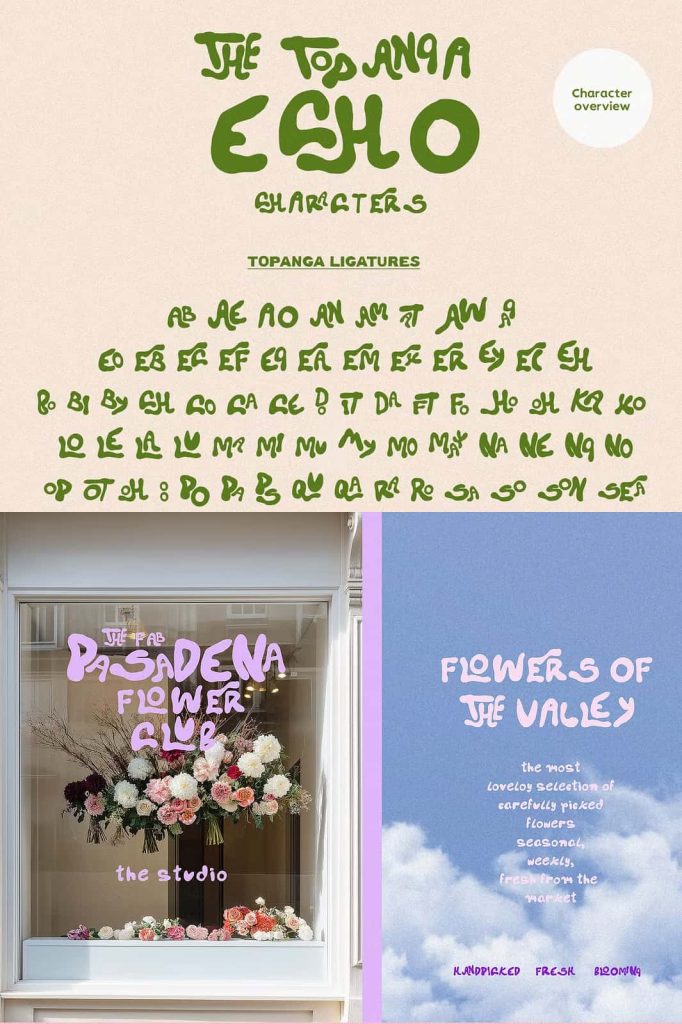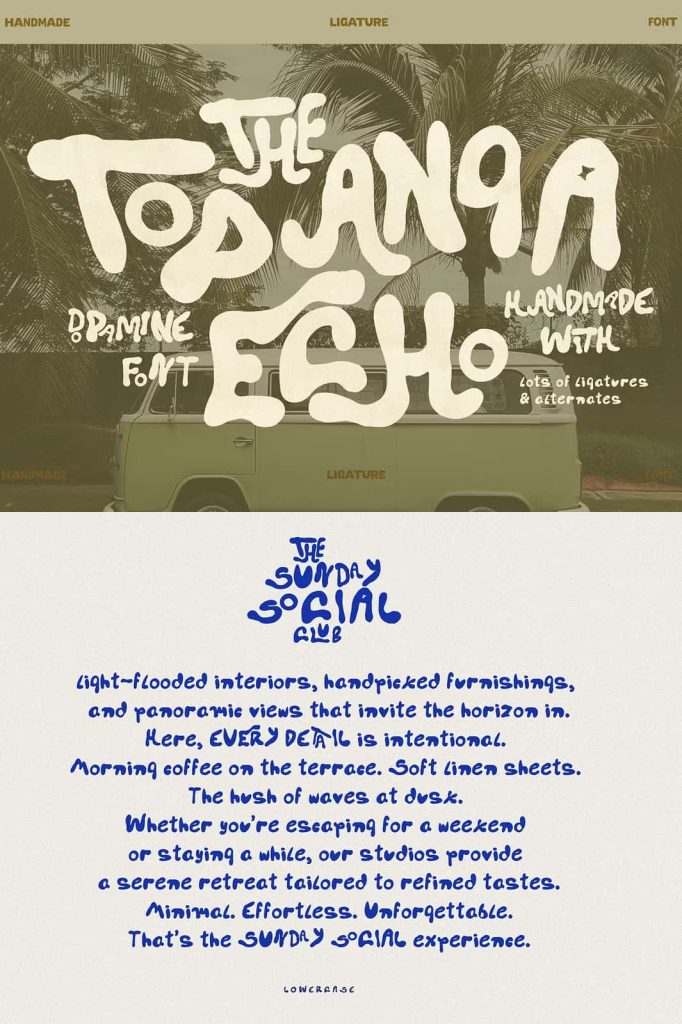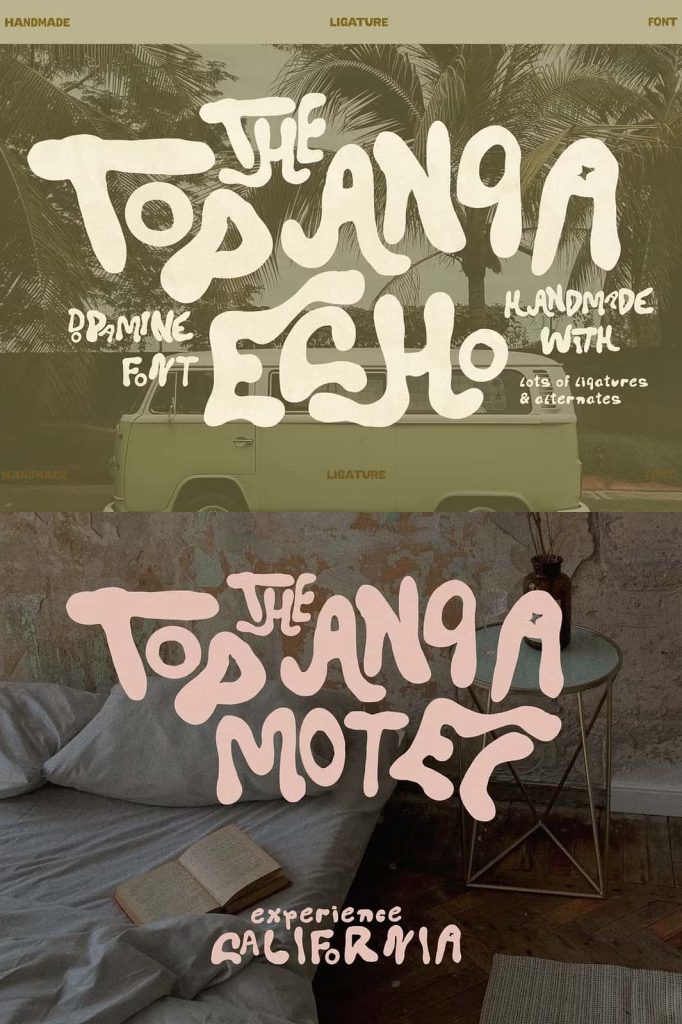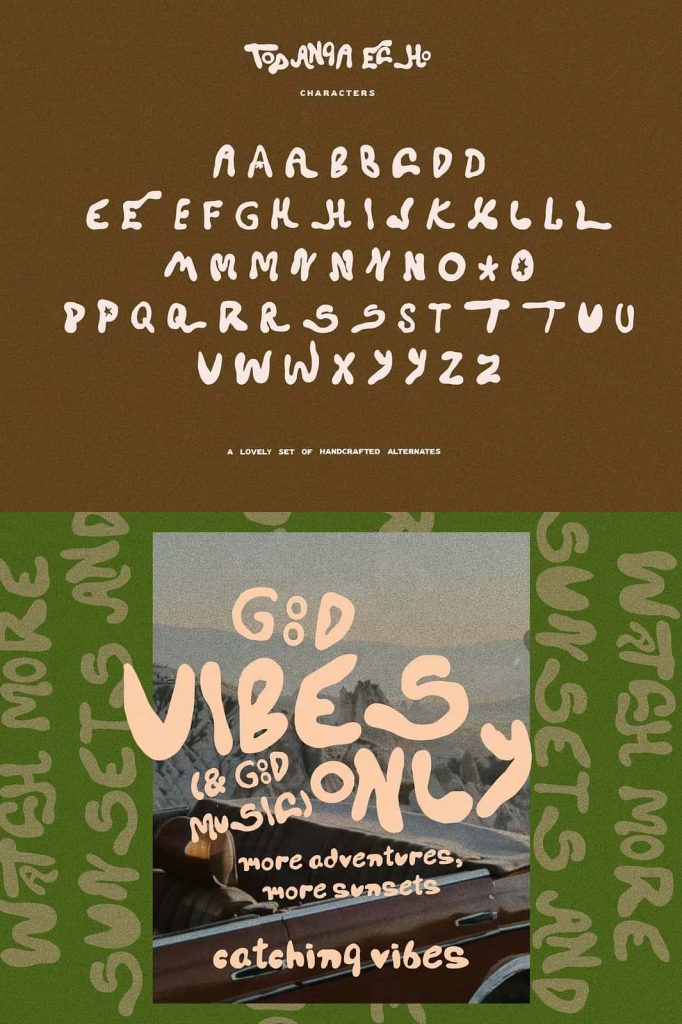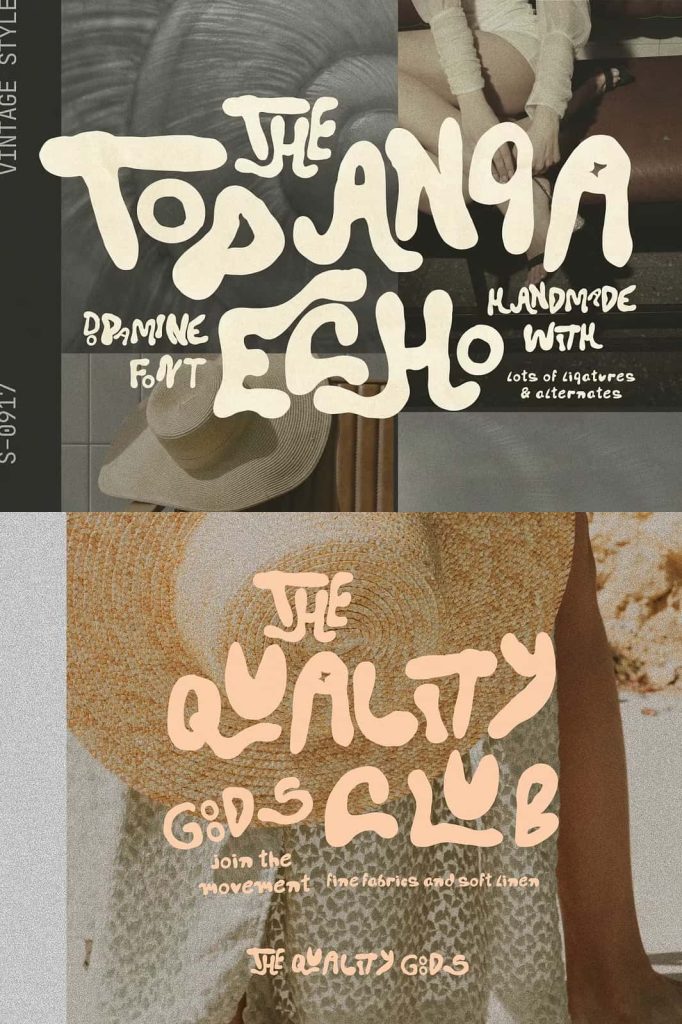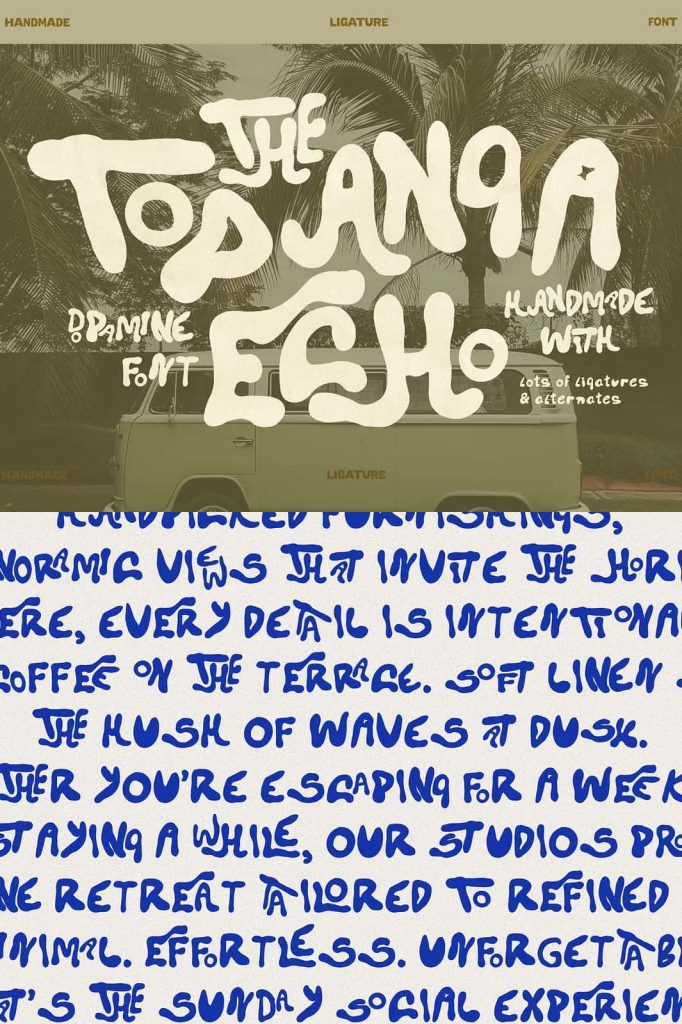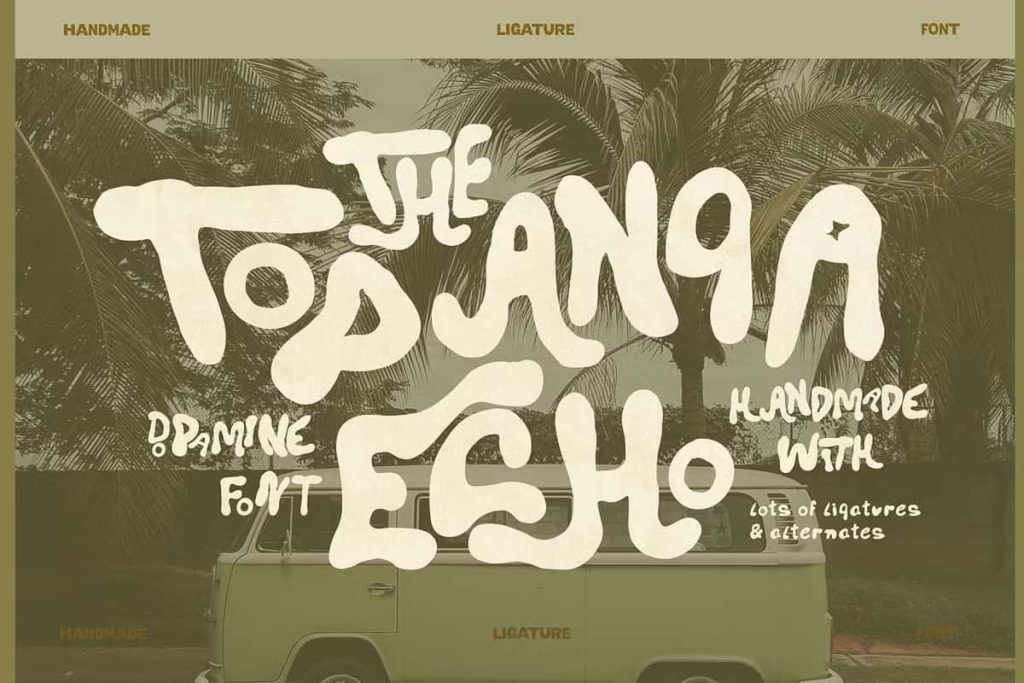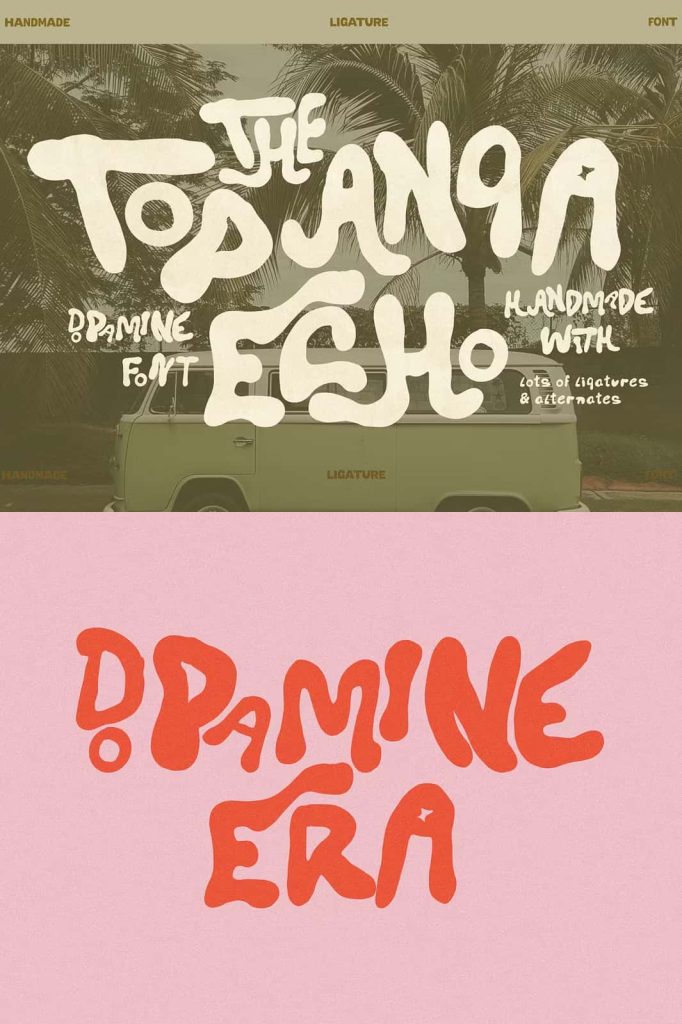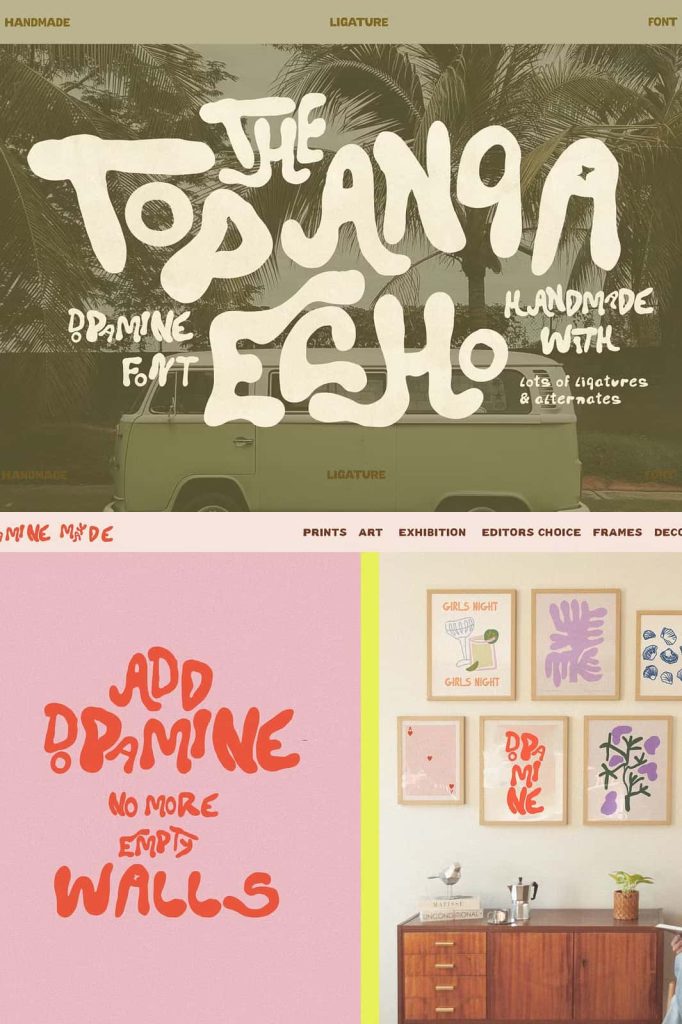
Topanga Echo Font
Topanga Echo is a distinctive vintage-inspired typeface that captures the relaxed atmosphere of canyon landscapes, classic record sleeves, and sun-bleached afternoons along the California coast. With its expressive hand-lettered character and playful typographic details, Topanga Echo brings warmth, nostalgia, and effortless personality to modern creative projects. The font transforms ordinary words into memorable visual statements while maintaining a natural handcrafted appearance.
Inspired by the laid-back spirit of California, Topanga Echo combines retro charm with contemporary design flexibility. Its expressive forms allow designers to create typography that feels personal, artistic, and slightly unconventional. Whether you are developing a logo, designing a poster, creating packaging, preparing apparel graphics, or building social media artwork, Topanga Echo gives your lettering an unmistakable handmade quality.
California-Inspired Hand-Lettered Character
Topanga Echo draws its personality from the visual culture of the California coast. Its design evokes warm afternoons, vintage print materials, independent music, roadside signs, surf culture, and relaxed creative spaces. The result is a typeface that feels nostalgic without becoming outdated.
The hand-lettered appearance gives each word a sense of movement and individuality. Instead of presenting typography as perfectly mechanical shapes, Topanga Echo creates the impression of lettering carefully crafted by hand. This quality makes the font particularly effective when you want a design to communicate authenticity, creativity, freedom, and personality.
Quirky Ligatures for Instant Personality
One of the most distinctive features of Topanga Echo is its quirky ligatures. These special character combinations allow designers to transform ordinary letter sequences into more expressive and visually interesting forms. With the right ligatures, you can make words feel more naturally hand-lettered with minimal effort.
Ligatures also provide an excellent way to customize prominent typography. Use them in logos, headlines, packaging titles, posters, and brand names to create subtle variations that make the lettering feel more unique. Rather than relying on the default appearance of every word, you can select character combinations that reinforce the handmade personality of the design.
Create Natural-Looking Lettering
Hand-lettered typography often feels appealing because it contains small details that make the lettering appear individually crafted. Topanga Echo uses its expressive character and ligature options to help designers recreate that feeling in digital projects.
Mix and match the available character combinations to create a more relaxed typographic rhythm. Use ligatures selectively to emphasize particular words or phrases, or incorporate them throughout a headline for a stronger handcrafted effect. These small changes can transform an ordinary text treatment into a much more distinctive visual element.
Perfect for Vintage Branding
Topanga Echo provides a strong foundation for brands that want to communicate nostalgia, creativity, and a relaxed lifestyle. Its California-inspired personality can give logos and wordmarks an authentic retro character while remaining flexible enough for contemporary branding.
Use the font for surf brands, cafés, restaurants, record shops, clothing companies, creative studios, travel businesses, lifestyle brands, handmade products, and independent retailers. Its expressive forms can help a business establish a recognizable identity that feels friendly, artistic, and memorable.
Build Memorable Logos and Wordmarks
Topanga Echo can turn a simple brand name into a distinctive typographic logo. Its hand-lettered character provides enough personality to make short words and phrases visually engaging. Use quirky ligatures to customize selected letter combinations and create a wordmark that feels unique to your brand.
For a relaxed identity, pair the font with simple illustrations, natural textures, or vintage-inspired graphic elements. For a more contemporary direction, combine the lettering with minimalist layouts, clean photography, and generous whitespace. This flexibility allows Topanga Echo to support multiple visual approaches.
Ideal for Posters and Record-Inspired Designs
The vintage character of Topanga Echo makes it an excellent choice for poster design. Use it for concert posters, music events, festivals, cultural programs, art exhibitions, markets, and promotional campaigns. Its expressive lettering can immediately establish a nostalgic atmosphere and create a strong focal point.
Topanga Echo also works beautifully for record-inspired artwork. Use it for album titles, artist names, playlist graphics, merchandise, and promotional materials. Pair the typeface with retro photography, grain textures, analog-inspired colors, or vintage illustrations to reinforce its connection to classic music culture.
If you want a vintage-inspired typeface that feels warm, artistic, playful, and effortlessly Californian, Topanga Echo offers a memorable and versatile solution for your next creative project.